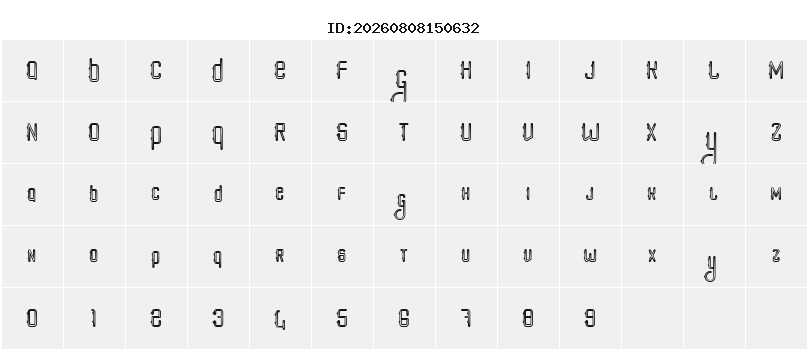
• Font Name: Poker style
• Designer: QKila
About Poker style.ttf
Poker style.ttf is a modern, elegant sans-serif font designed for ultimate readability and visual harmony. Perfect for branding, headlines, web design, and print materials.